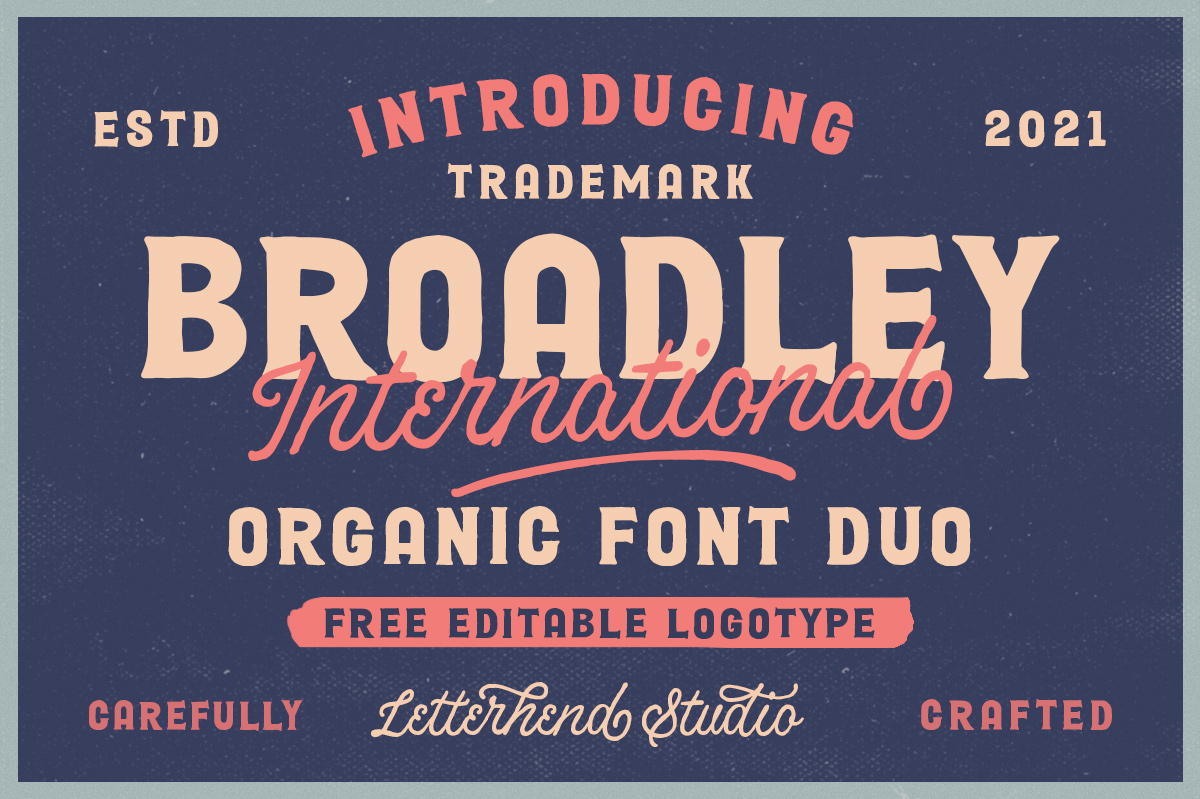
Broadley Font
Broadley Font is widely used in corporate annual reports, professional presentation slides, financial services branding, executive business cards, law firm communications, government documentation, academic institution materials, and prestigious conference signage.
Broadley Font is an exciting typeface that commands respect with its authoritative presence and distinguished character. This font embodies institutional credibility, executive leadership, and established excellence, making it perfect for organizations that want to convey authority, professionalism, and unwavering trustworthiness in their prestigious visual communications.
The Broadley Font family consists of Regular, Bold, Light, Italic, Medium, Condensed, Extended, and Black variants. This distinguished collection enables designers to create commanding typographic systems that maintain executive consistency while offering strategic flexibility for various institutional and corporate applications.
Broadley Font Free Download provides exceptional executive appeal for designers working with established organizations and professional service providers. The font's authoritative character and institutional styling create an immediate sense of credibility and executive competence. This typeface excels in applications where leadership, expertise, and institutional authority must inspire confidence in high-stakes business environments.
The distinctive authority of Broadley Font lies in its ability to convey executive leadership and institutional stability through carefully proportioned letterforms that suggest proven experience and reliable judgment. Each character maintains the substantial weight and professional details that reflect corporate excellence and established success. The font's confident presence and strategic spacing create visual hierarchy that commands attention while maintaining accessibility.
Fortune 500 companies and established institutions choose Broadley Font for its power to communicate leadership without appearing aggressive or intimidating. The typeface performs exceptionally well in corporate communications, professional services marketing, institutional branding, and executive-level presentations. Its authoritative aesthetic appeals to business audiences who value proven track records and established expertise.
The executive craftsmanship of Broadley Font includes comprehensive character support, advanced kerning systems, and optimized spacing that ensures flawless performance in complex corporate documents and multi-language applications. These institutional-grade specifications make it particularly suitable for international business communications, formal documentation, and applications where typographic excellence and corporate authority must meet the highest standards of professional presentation.